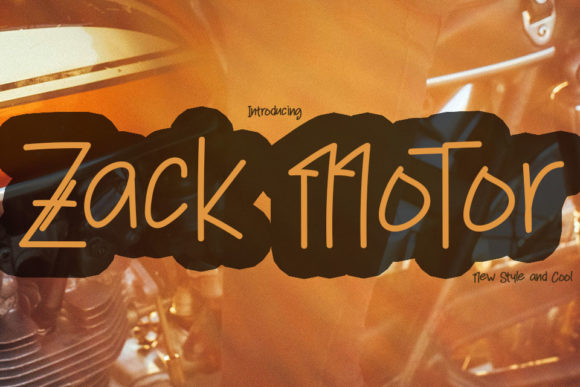
Unleash the Zesty Spirit of New Beginnings with Zack Motor Font: A Handcrafted Masterpiece for Your Creative Endeavors
In the realm of digital artistry, where fonts sculpt the essence of your message, Zack Motor Font emerges—a captivating creation poised to transform your projects into visual masterpieces. With its enchanting script, this handwritten font breathes life into your words, evoking a sense of joyous exuberance and heartfelt authenticity. Crafted with meticulous attention to detail and an unwavering commitment to quality, Zack Motor Font is the embodiment of elegance and innovation, ready to elevate your designs to unprecedented heights.
Immerse yourself in the world of Zack Motor Font and discover a symphony of visual delight. Its strokes, as delicate as a feather's caress, flow seamlessly across the canvas, capturing the essence of handwritten notes penned with love and care. Each letterform exudes a unique charm, reflecting the artistry of its creator, muhawk47, who poured their heart and soul into this masterpiece. The result is a font that transcends the ordinary, inviting you on a journey of creative exploration and self-expression.
Imagine the possibilities as you wield Zack Motor Font to craft breathtaking logos that command attention, eye-catching social media graphics that ignite engagement, and stunning website designs that leave a lasting impression. This versatile font effortlessly adapts to a myriad of design needs, seamlessly blending with your vision and amplifying your message with unparalleled grace.
Step into the New Year with Zack Motor Font as your creative companion. Let its spirited essence infuse your projects with an irresistible charm that captivates audiences and leaves them yearning for more. Whether you're a seasoned designer or just starting your creative journey, Zack Motor Font empowers you to unlock your full potential and unleash your inner artist.
Don't miss this opportunity to add Zack Motor Font to your digital toolbox. Embrace the spirit of renewal and transformation, and watch as your designs flourish with newfound elegance and sophistication. Embrace the limitless possibilities that await you and embark on a creative odyssey that will redefine your artistic horizons.